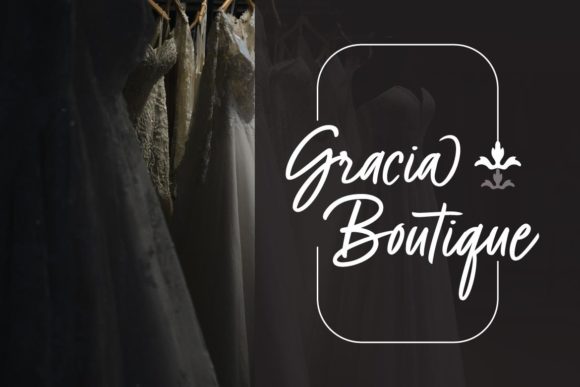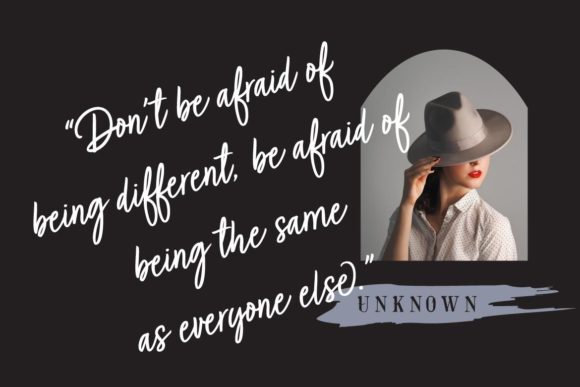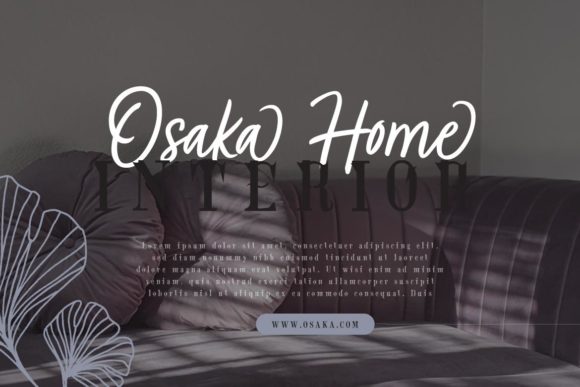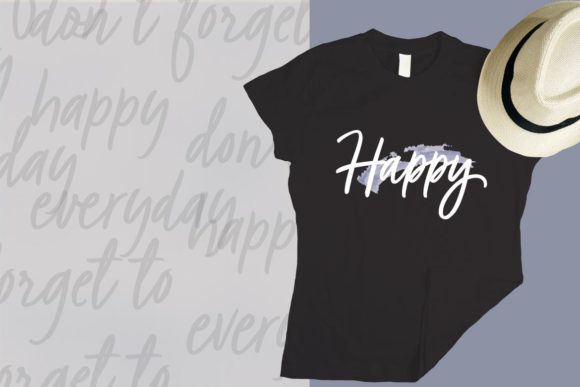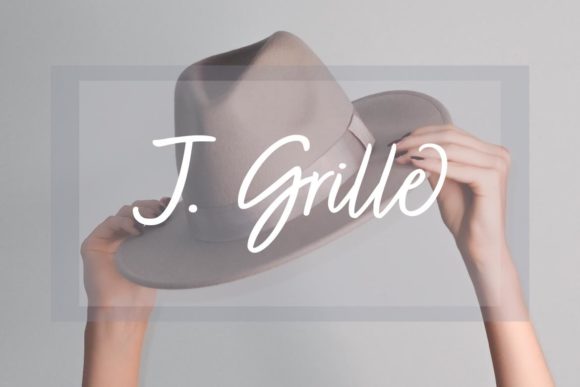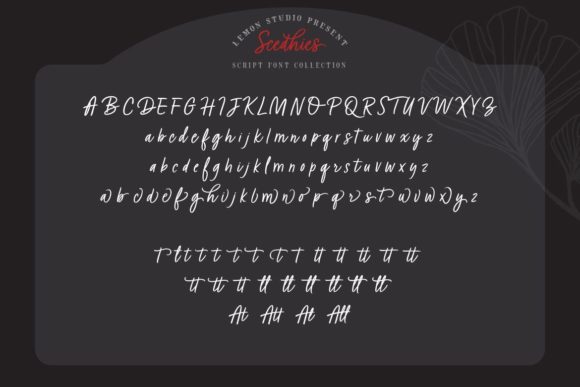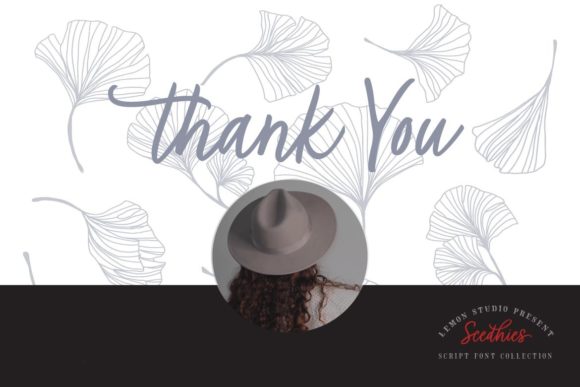
Scedhies Font
Scedhies is a stylish and delicate script font. It has a clean, thin, and smooth vibe that will be a hit for any design you want to add it to!